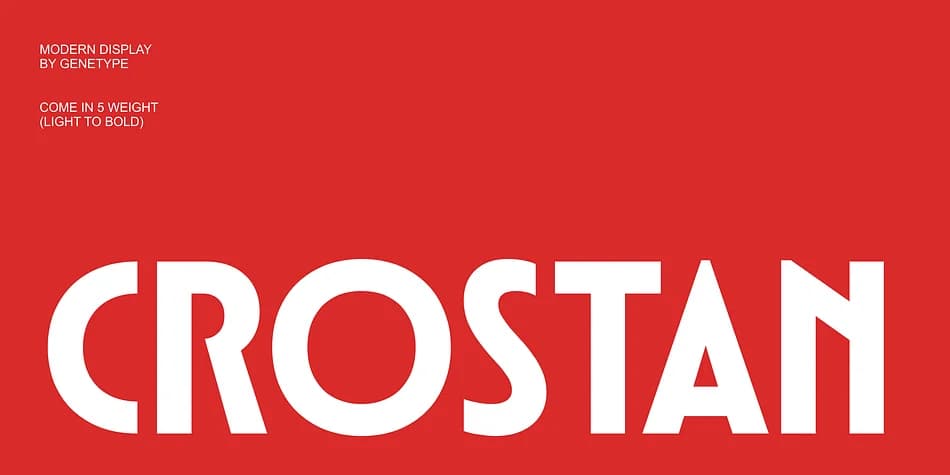
1 / 10About Crostan Font
Crostan by Genetypeco is a geometric display typeface grounded in Bauhaus principles. It strips away ornamental details and focuses on clean lines and bold letterforms that carry real visual weight. The family includes five carefully considered weights, giving you the flexibility to establish hierarchy and emphasis across your work while maintaining that distinctive modern character throughout your projects.
This typeface shines in contexts demanding both strength and clarity. Tech startup branding suits its minimalist vocabulary naturally, reading as confident and forward-thinking without trying too hard. Luxury brand lookbooks gain significantly from its understated sophistication and geometric precision. Gallery exhibition signage benefits from the immediate visual impact and superior legibility at distance. You'll find it works equally well for editorial magazine covers, high-end restaurant menus, and architecture firm presentations where strong typography matters far more than decoration ever could.
The consistent geometric structure means Crostan performs reliably across a range of sizes and contexts, from web to print and everything in between. Whether you're building complete identity systems or designing single pieces, the typeface's versatility makes it a dependable choice for designers who value both form and function. Head directly to Creative Fabrica to add this foundational typeface to your collection.
Crostan Font is a decorative font that shines as a display or heading face. Pair it with a clean sans-serif or serif font for body text β the contrast creates a clear hierarchy while the two styles stay balanced and easy to read.
Crostan Font
by Genetypeco